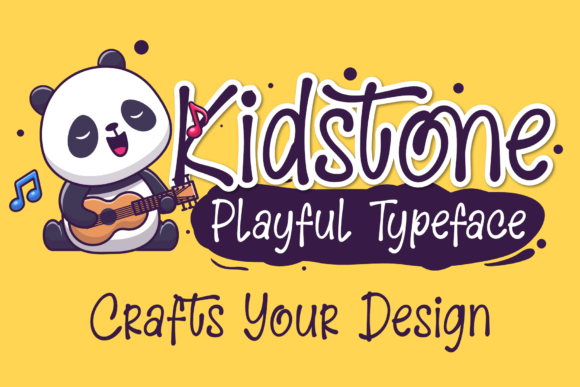
Ignite your podcast logo with Kidstone, the font that brings playfulness, authenticity, and individuality to your brand's voice. This delightful font, crafted by the skilled hands of DUMADI, is a display font that captivates audiences with its charming and whimsical nature. Kidstone is the perfect choice for podcasters seeking to create logos that radiate warmth, creativity, and a connection with their listeners.
Unleash your imagination and let Kidstone be your creative companion. Its playful and energetic vibe adds a touch of magic to any design, making it ideal for children's activities, school projects, and playful branding. With Kidstone, your designs will come alive, brimming with personality and a sense of adventure.
Kidstone is more than just a font; it's an expression of your creativity, a reflection of your podcast's personality. It's a font that speaks to the heart of your audience, forging an emotional connection that keeps them engaged and eager for more. Its playful spirit and authenticity resonate with listeners, creating a sense of relatability and trust.
With Kidstone, your podcast logo won't just be a visual representation of your brand; it will be a symbol of the joy, laughter, and inspiration that your podcast brings to its listeners. It's a font that captures the essence of your podcast, inviting listeners into a world of imagination and discovery.
So why settle for ordinary when you can have extraordinary? Choose Kidstone and let your podcast logo shine with personality, authenticity, and captivating charm. Take the first step towards creating a logo that resonates with your audience and leaves a lasting impression. Embrace Kidstone, and together, you'll craft a logo that tells your podcast's story in a way that no other font can.